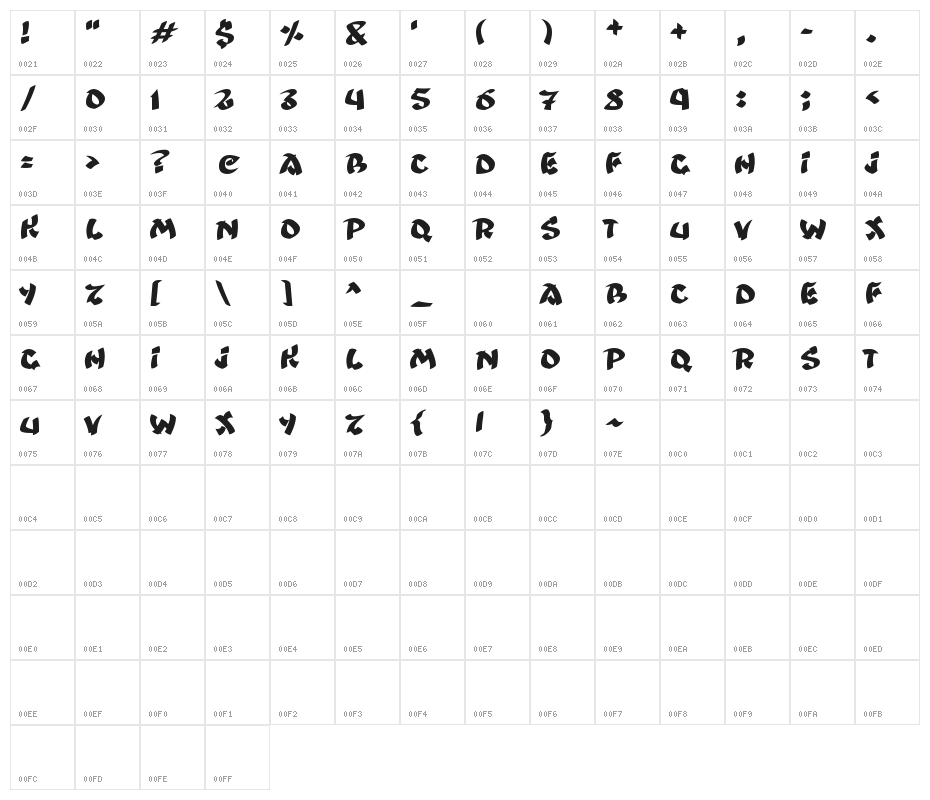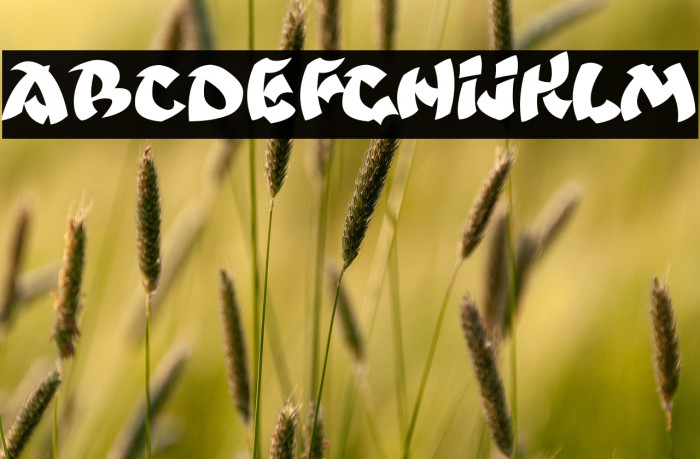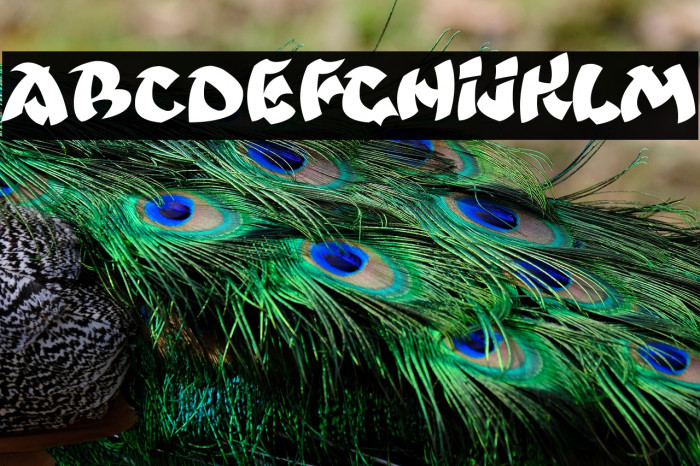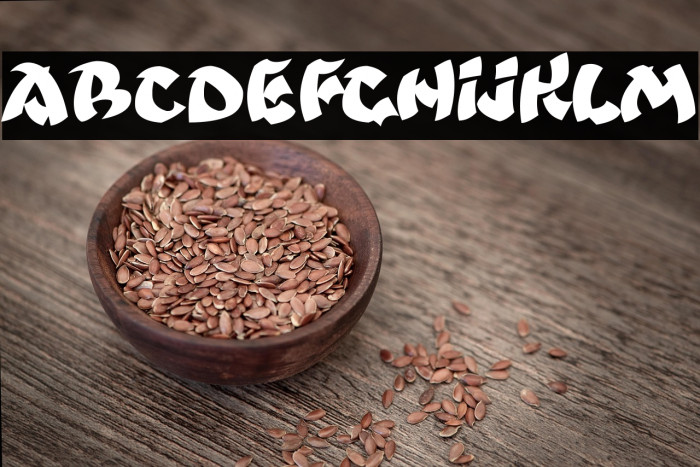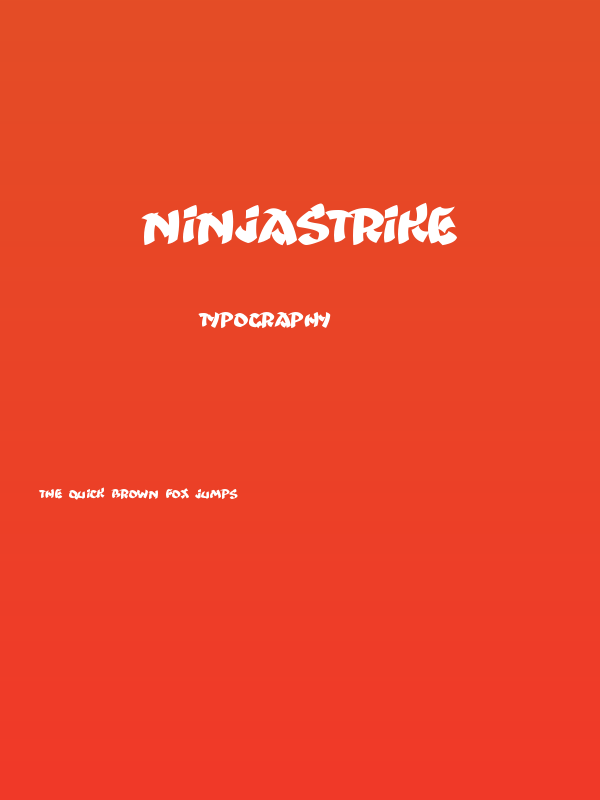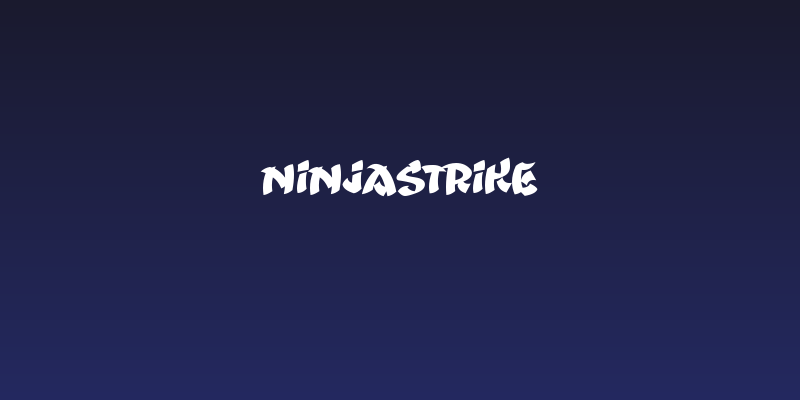
Ninjastrike Font
Ninjastrike Description
This font features a bold and dynamic style with sharp, angular edges and a strong presence. The characters are designed with a sense of movement and energy, reminiscent of brush strokes or calligraphy. The uppercase and lowercase letters maintain a consistent style, with a slightly condensed appearance. The numbers and special characters follow the same bold and expressive design, making them stand out. This font is ideal for projects that require a striking and impactful visual element.
| Proposed Projects | Perfect for logos, posters, video game graphics, and any project needing a bold, energetic typeface. |